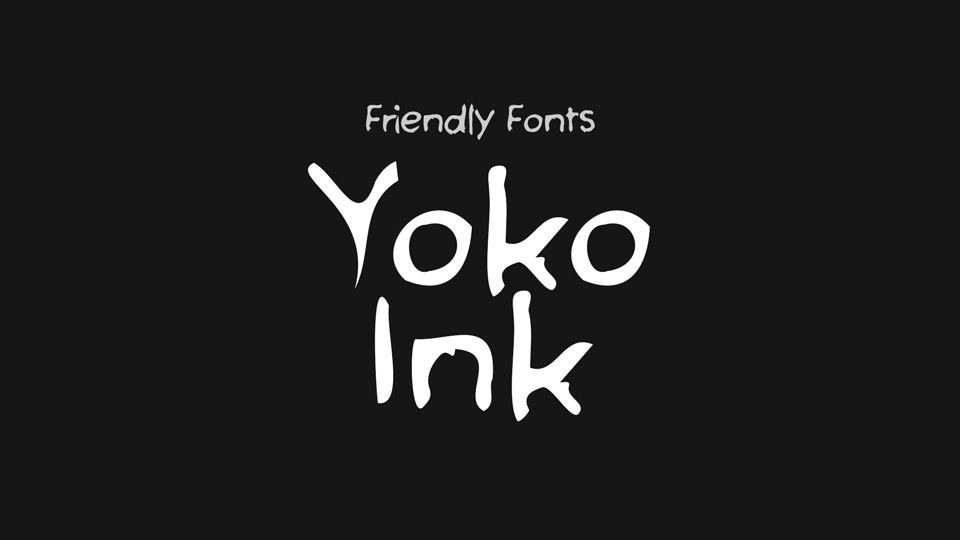
Feb 2, 2025Script & HandwrittenYoko Ink Font Yoko Ink is an organic and irregular hand drawn typeface. Perfect for craft projects giving your work a rustic, personal touch. Font DetailsDesigned by: Friendly FontsWebsiteLicense: Free for commercial use Download Yoko Ink FontFile size: 18.30 KBCreated: February 16, 2025Updated: February 16, 2025 Download Explore similar fonts Lolita Brush Font Megas Font Glast Blitch Font Inkburrow Font Think Memories Font Tyrowo Inked Font # Casual# Hand-drawn# Handwriting# Ink More fonts by Friendly FontsFF Casper Bold FontFineliner Script FontVentura Bold FontFF Baldwin Bold FontCaron Bulge FontBellamy Sharp FontPost-it Script Font